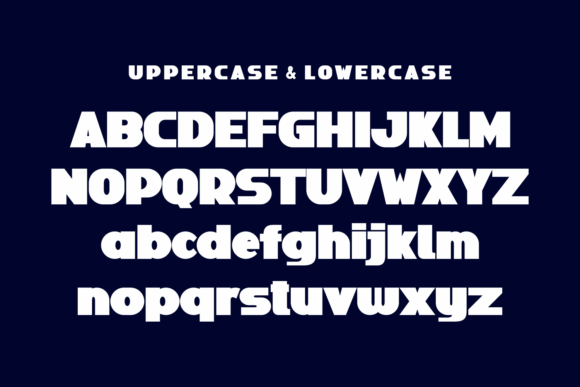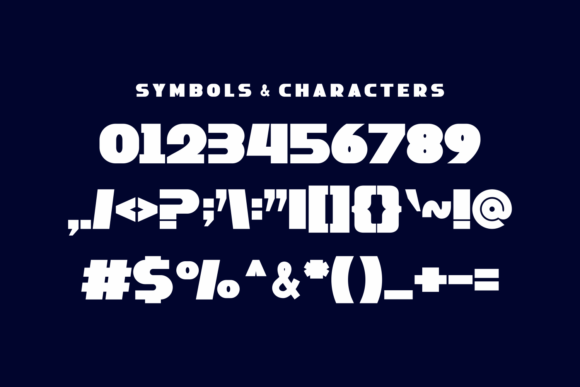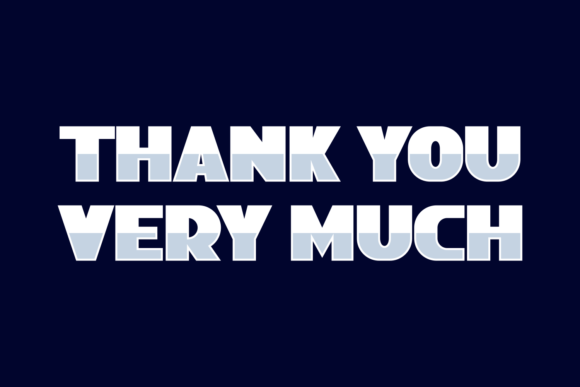
Introduction to Segom Font
**Segom** Perfectly suited on print/screen.
Segom Font offers exceptional quality and versatility, making it a valuable addition to your design toolkit. Whether you’re creating for personal projects or commercial use, Segom Font delivers professional results.